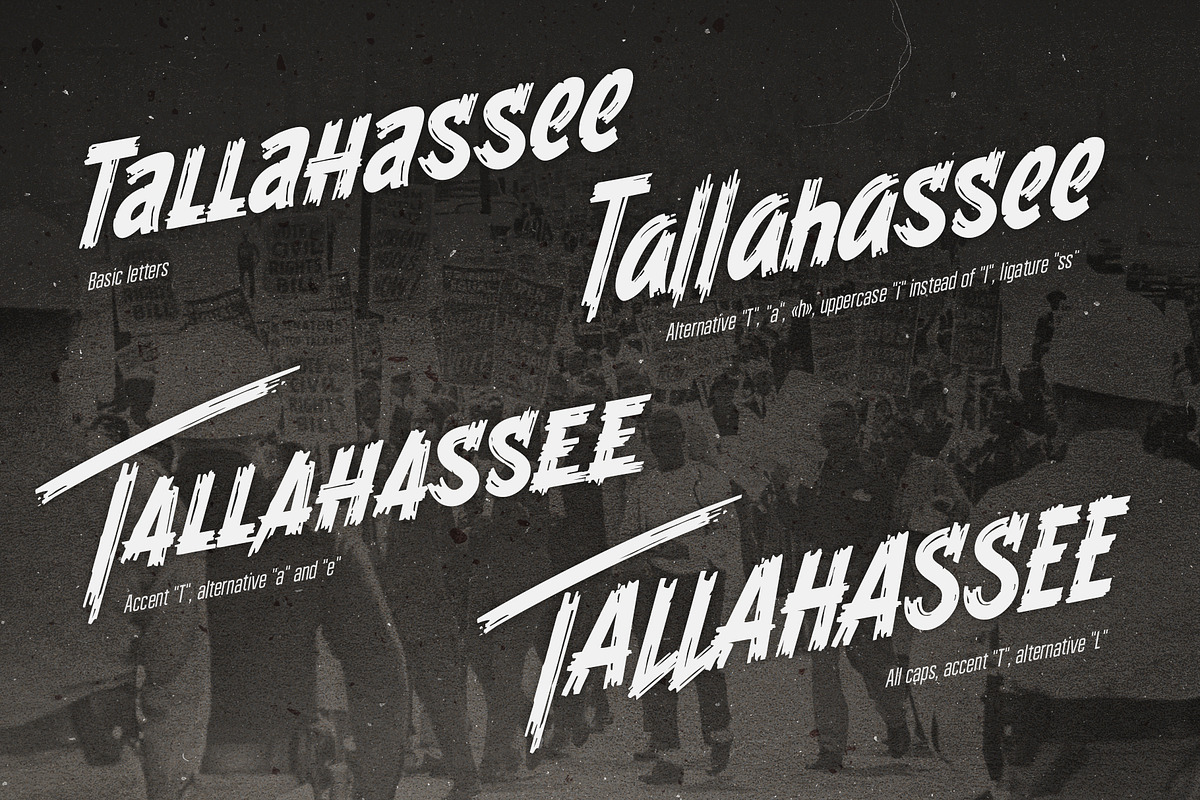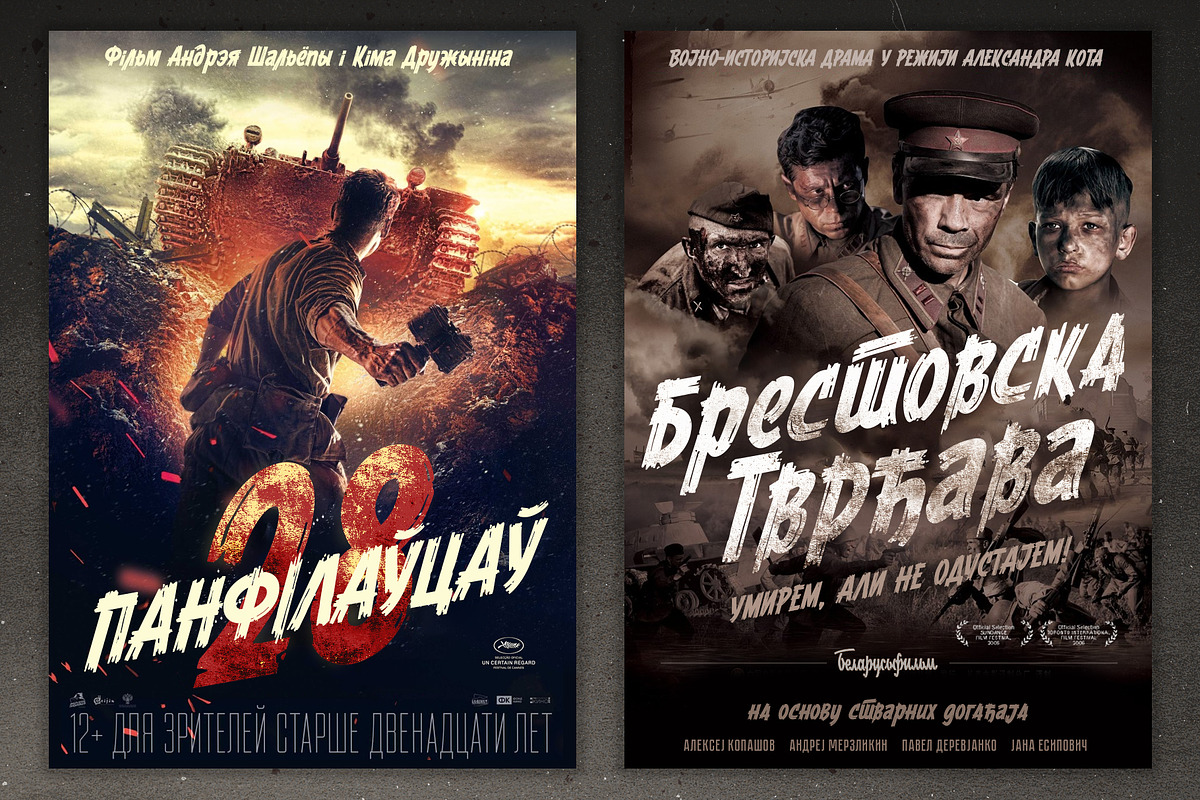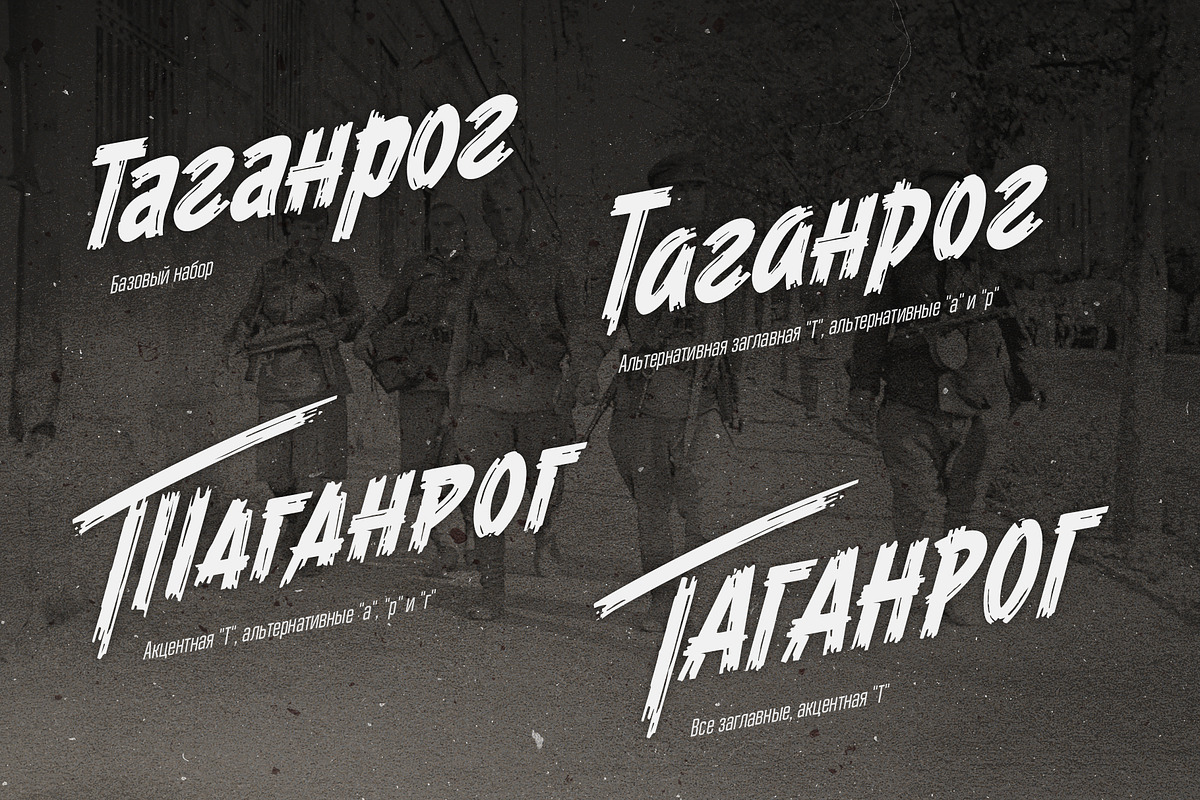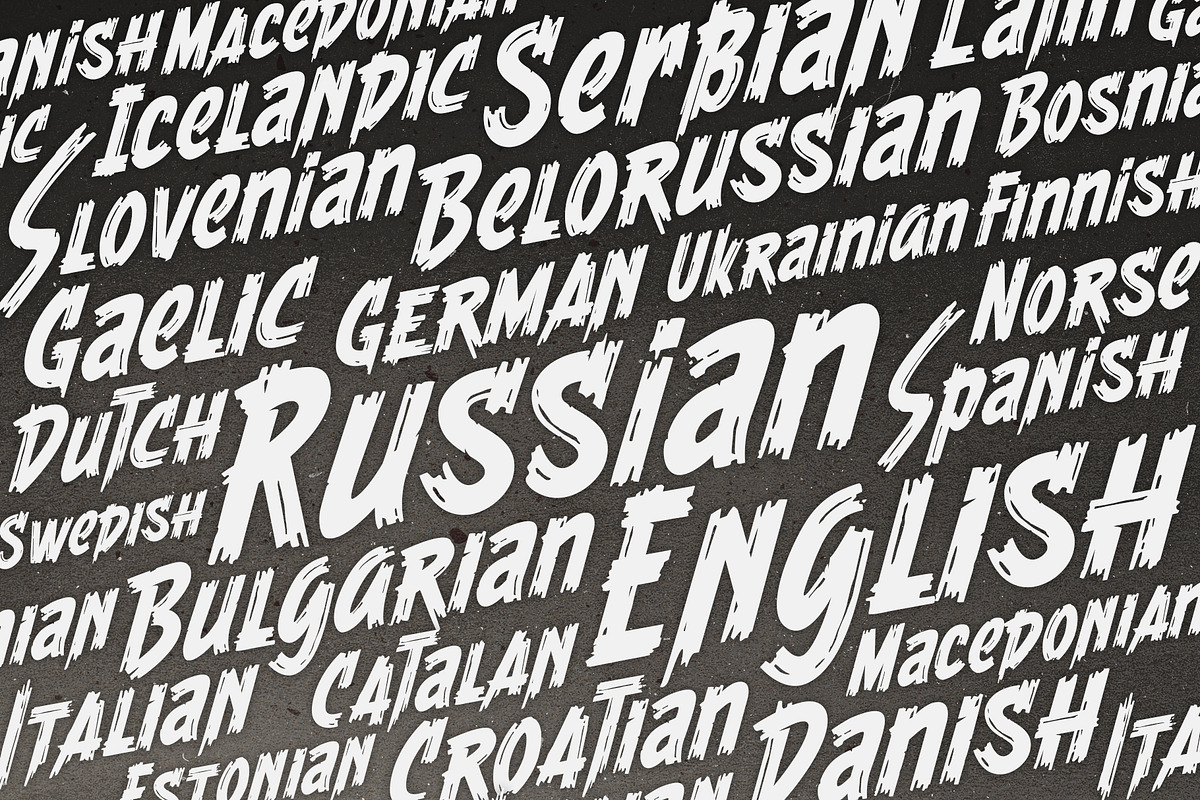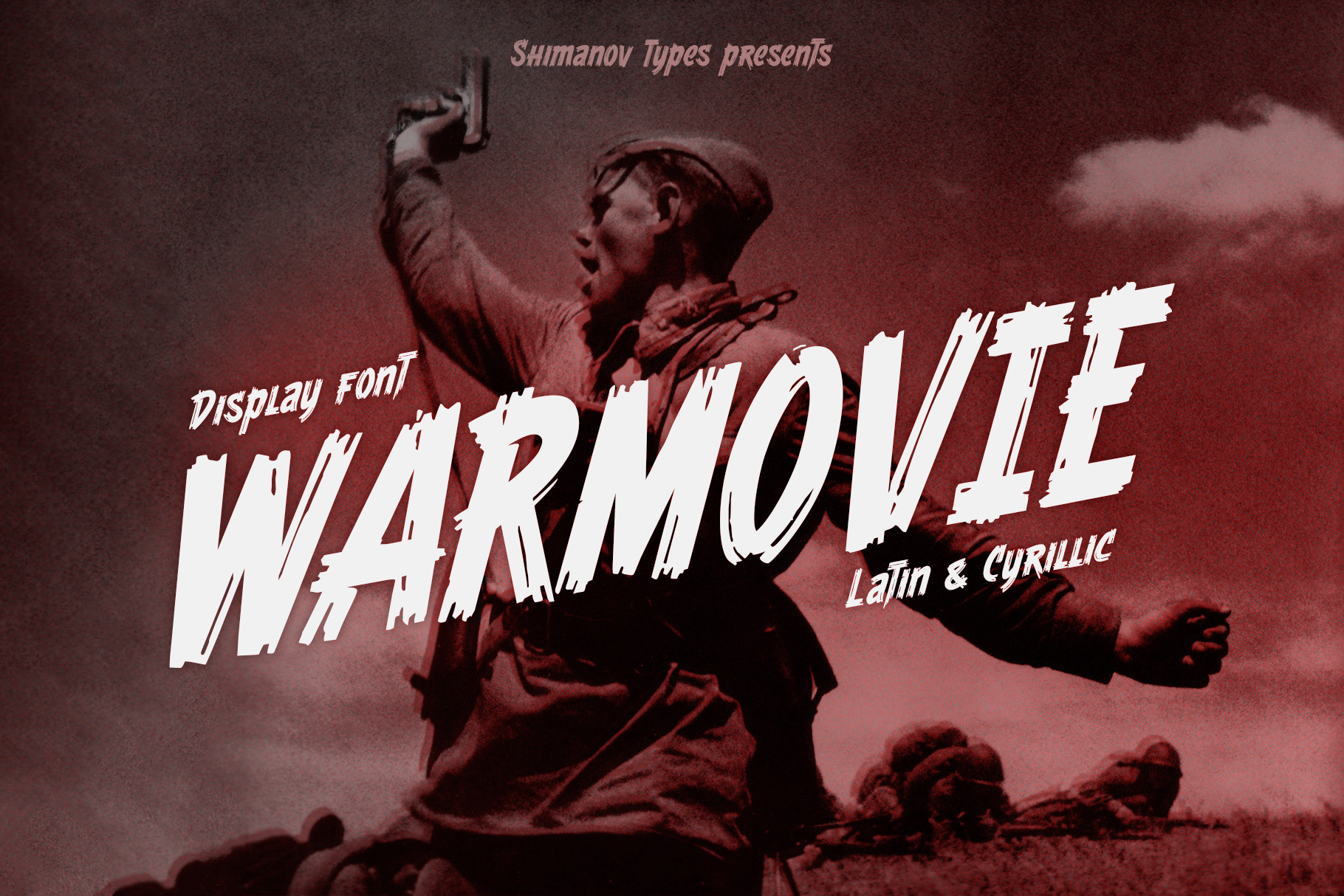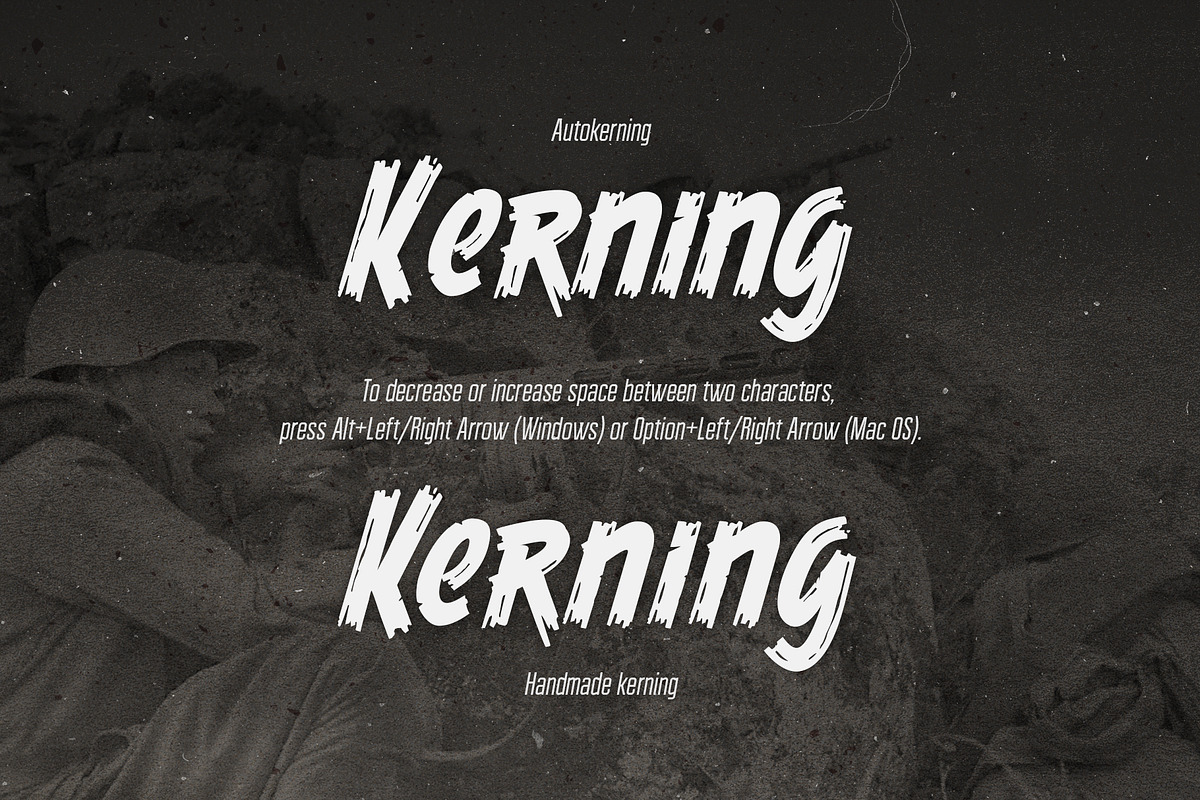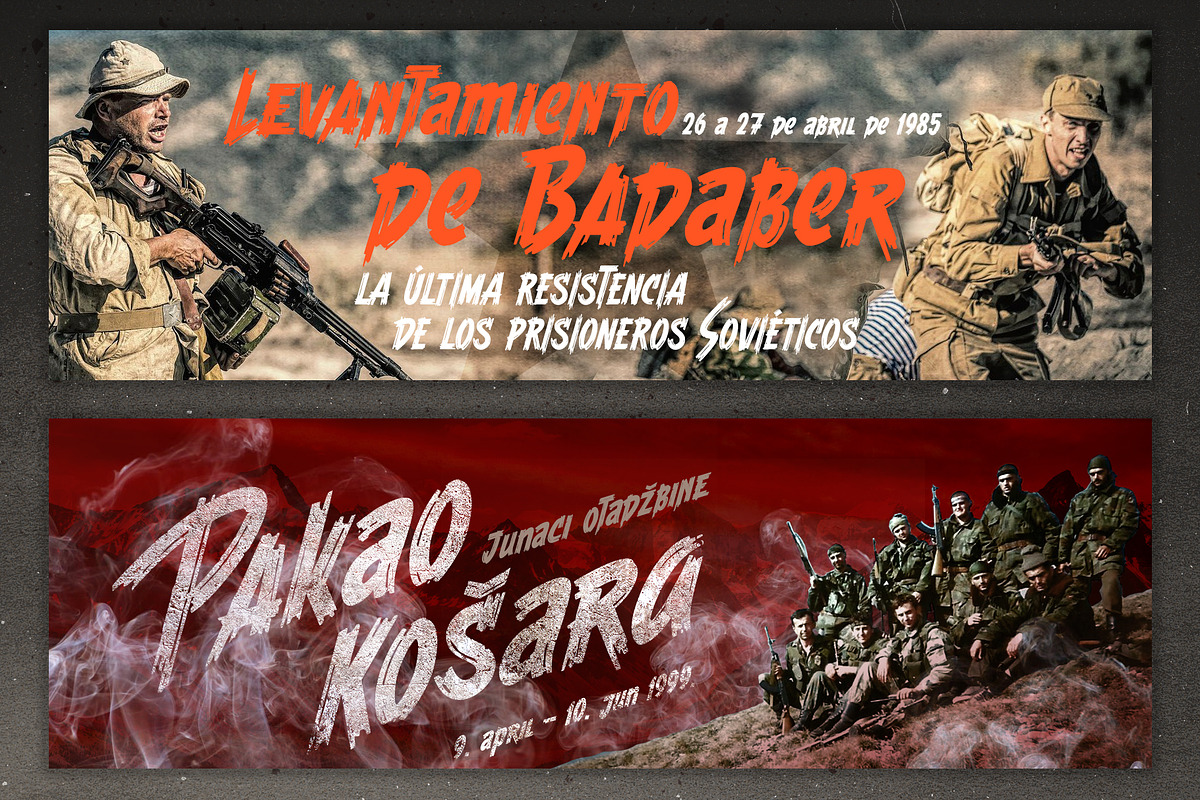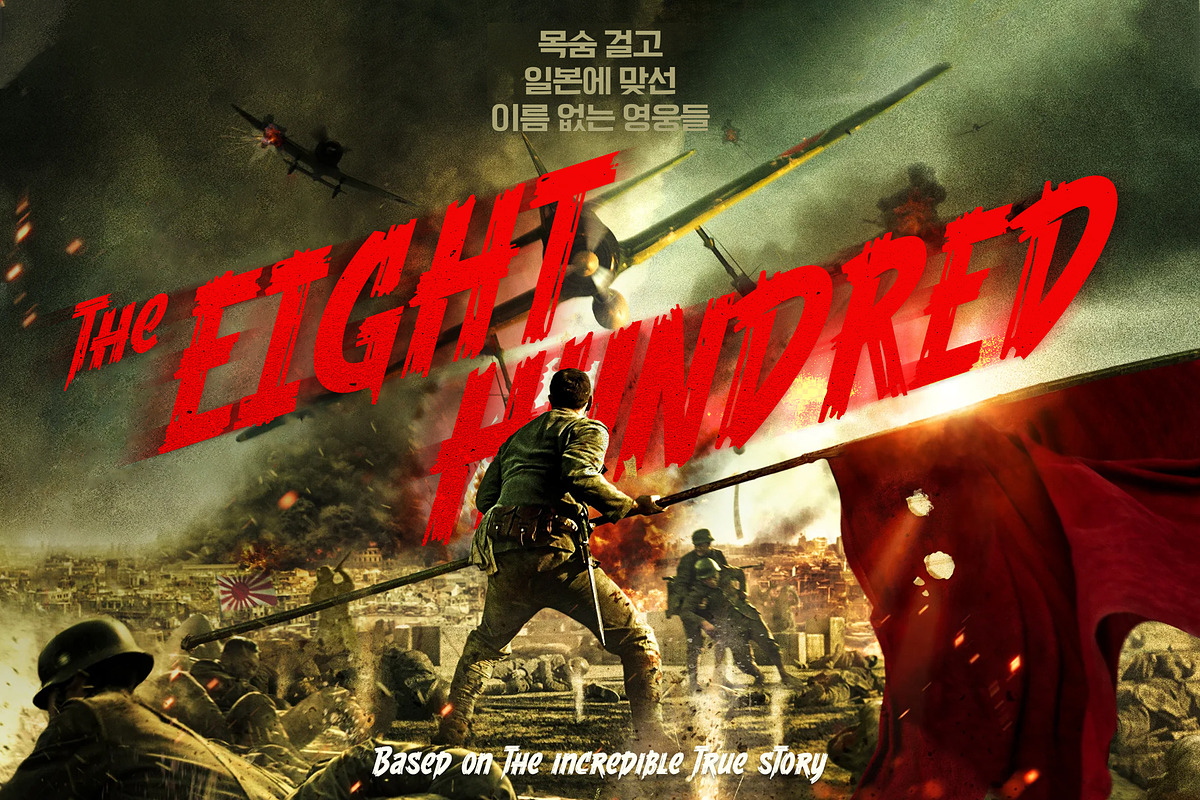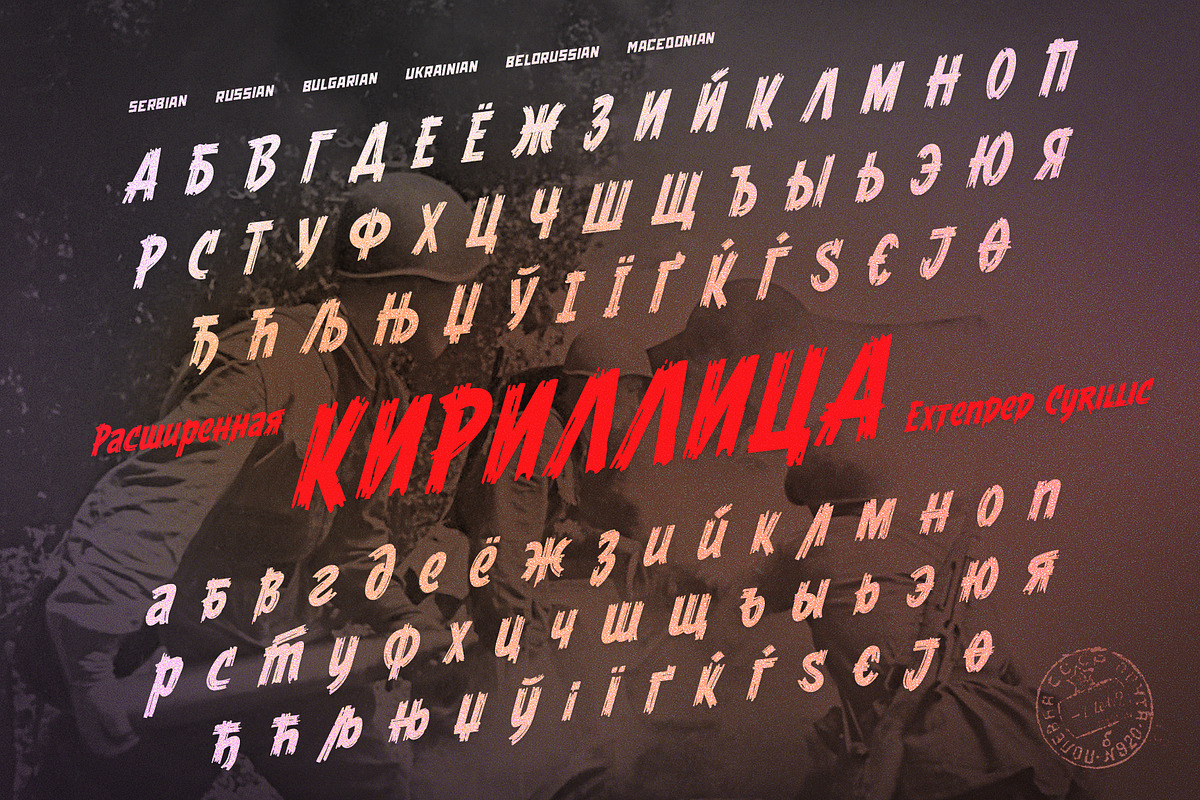
ST-WARMOVIE display font
Heavy display font called "ST-WARMOVIE" is the font created for ... war movie titles. It's inspired by Soviet posters, movie titles and book covers. The letterforms are made to imitate raw brush lines and has very expressive energy. The font comes in 2 styles: uppercase and lowercase and includes alternatives and accent letters. It has Extended LATIN and Extended CYRILLIC letters.
Uppercase, lowercase, alternatives, numbers, basic punctuation.